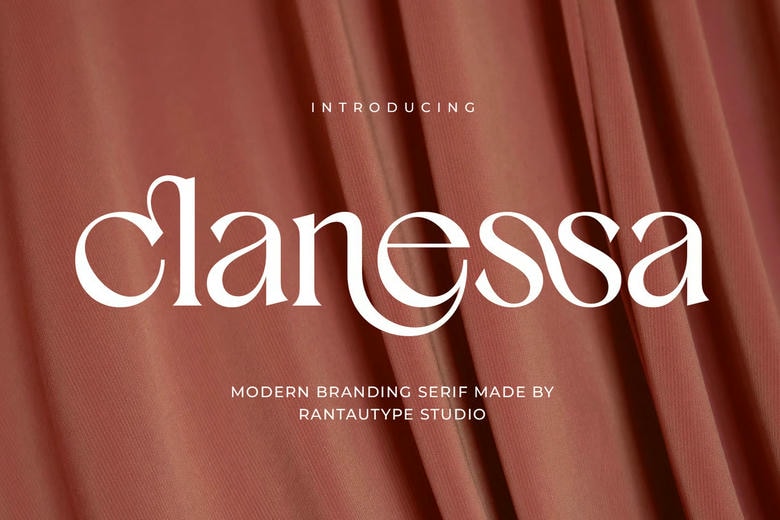
Clanessa Font
Clanessa is a modern serif font from Rantautype Studio. Its elegant and versatile style helps your projects stand out.Clanessa works well for many creative projects, including logos, titles, covers, branding, invitations, wedding designs, magazines, social media posts, ads, quotes, packaging, labels, photography, watermarks, special events, and more.
Clanessa Serif Font